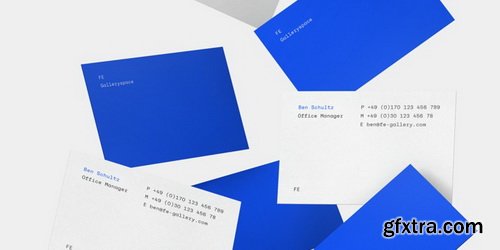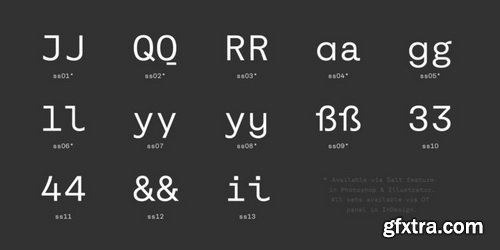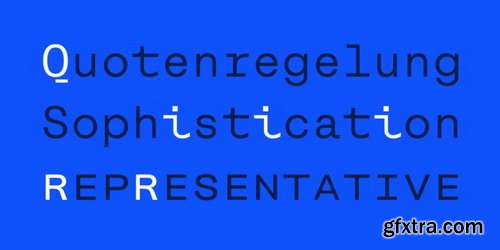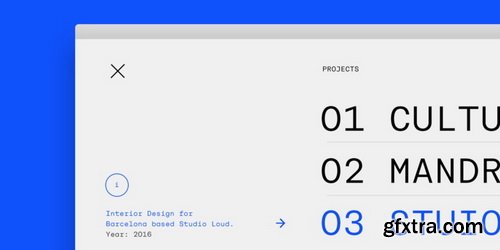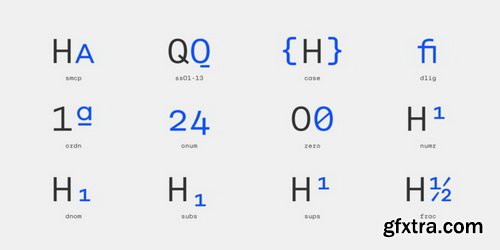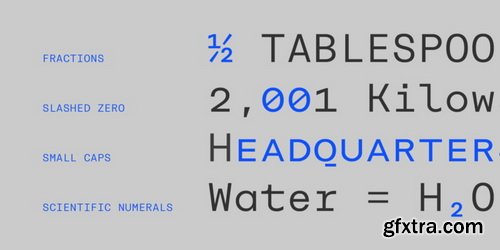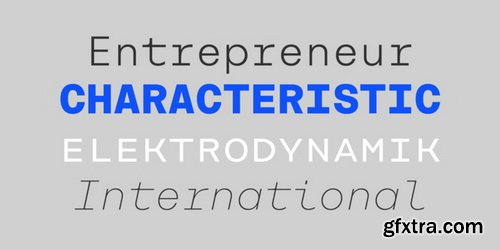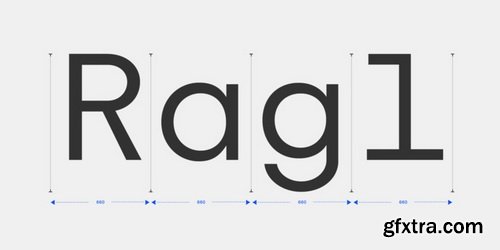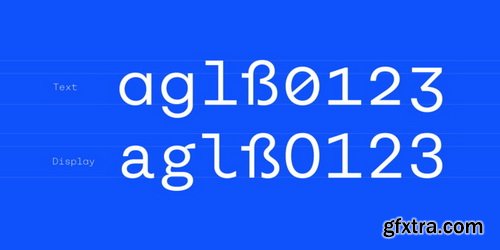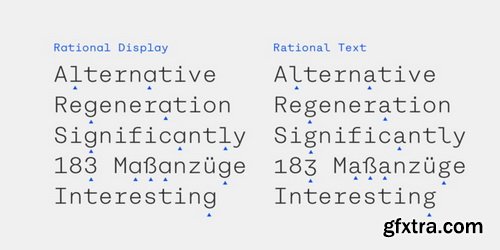
Rational TW is the typewriter addition to the Rational family. It is a monospaced font building on the same principles as its proportional, neogrotesque brother, such as maximum legibility and flexibility while combining Swiss and American gothic elements with a modern aesthetic. Due to the monospaced environment, some of its letter shapes like “r”, “m”,“f”, “i” and “w” have been slightly adapted but kept the same in appearance.Rational TW comes in two version: Rational TW Display and Rational TW Text. As indicated by its name, Rational TW Text is not limited to, but works best in small font sizes because it features distinctive letter shapes like a double storey “a” or “g” in order to help differentiate similar glyphs in small sizes. Rational TW Display, on the other hand, creates a geometric uniformity by implementing round shapes in “a” and “g”, giving it a subtle friendly and open character.Unlike many other monospaced fonts, Rational TW has a large amount of opentype features like small caps, alternative glyphs, case sensitive shapes, and many more making it the perfect choice for countless scenarios. With more than 700 glpyhs per font, it performs excellently in any project from print to digital.